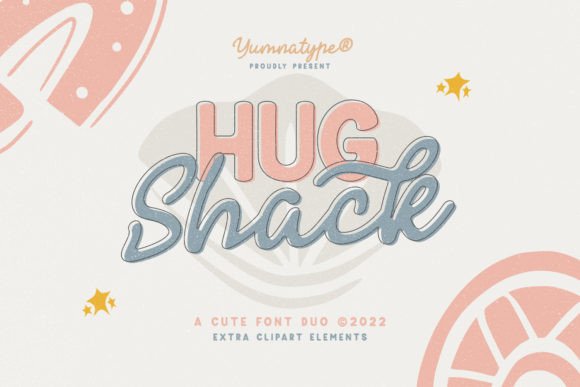
Introducing Hug Shack Font, the ultimate script font family designed by Yumna_Type. If you're searching for the best fonts to enhance your digital ads, look no further! Hug Shack is here to captivate your audience and elevate your design to new heights.
With its exquisite beauty and effortless style, Hug Shack Font is a must-have for any creative project. This font duo exudes a sense of joy and cuteness, instantly grabbing attention and creating a lasting impression. Get ready to make heads turn and hearts flutter!
What sets Hug Shack apart is its seamless blend of elegance and playfulness. Whether you're designing a logo, a website, or social media graphics, this font duo offers endless possibilities. Mix and match the two fonts to create stunning results that will leave everyone in awe.
But that's not all – Hug Shack Font is PUA encoded, granting you easy access to a wide range of glyphs and swashes. Add that extra touch of finesse and uniqueness to your designs effortlessly. Unlock the full potential of this font and let your creativity run wild.
Imagine the impact your digital ads will have with Hug Shack Font. Picture your audience being irresistibly drawn to your message, unable to resist the charm and allure of this font duo. From eye-catching headlines to captivating call-to-actions, Hug Shack will make your words come alive.
Don't settle for average when you can have extraordinary. Hug Shack Font is the key to standing out in the crowded digital landscape. It's time to leave a lasting impression on your audience and make your brand unforgettable.
Remember, your design deserves the best. And the best fonts for digital ads? That's Hug Shack Font. Get ready to take your designs to the next level and leave a lasting impression that will make your competitors envious.
Experience the joy, cuteness, and endless possibilities of Hug Shack Font today. Download now and let your imagination soar!